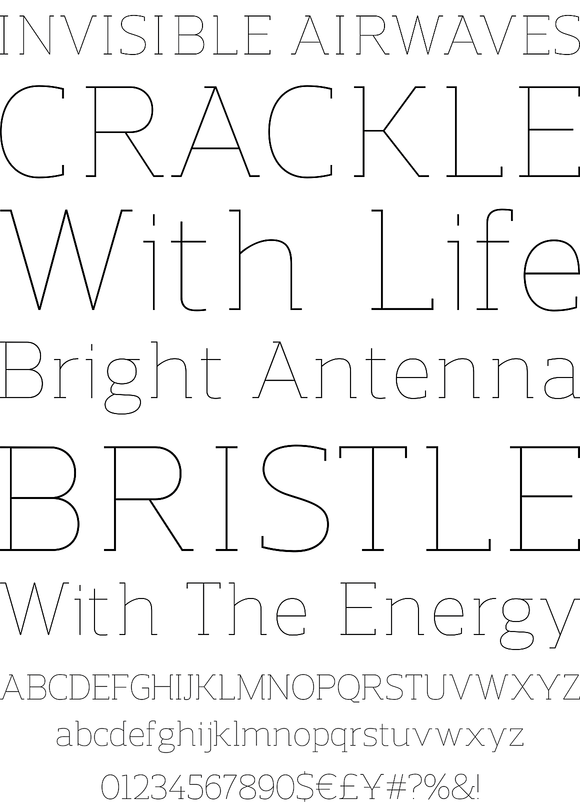
A precision cut slab serif typeface. Simple curves are combined with sharp angles to provide a readable font with subtle characteristics. Regan Slab is ideally suited to a wide range of applications including magazines, newspapers and handheld devices. ...
A precision cut slab serif typeface. Simple curves are combined with sharp angles to provide a readable font with subtle characteristics. Regan Slab is ideally suited to a wide range of applications including magazines, newspapers and handheld devices. Details include 10 weights with italics, 540 characters, 5 variations of numerals, small caps, stylistic alternatives, manually edited kerning and Opentype features.